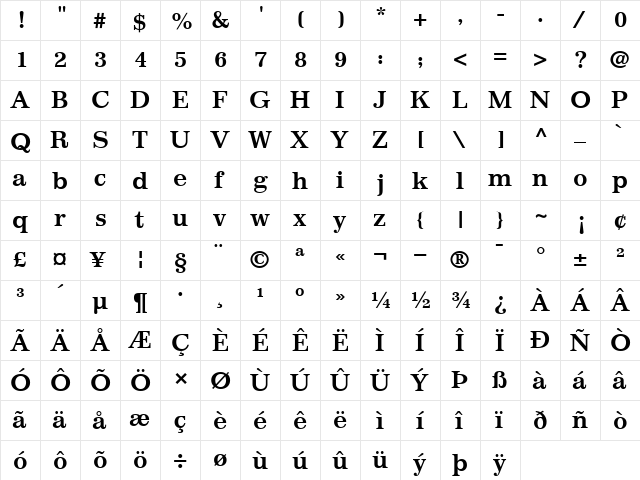
12Impressum**07134 Bold
Design Context for 12Impressum**07134 Typeface
12Impressum**07134 takes a measured approach to typography — its balanced proportions and neutral character make it a reliable workhorse for both digital and print work. The heavy weight commands attention and anchors typographic hierarchies.